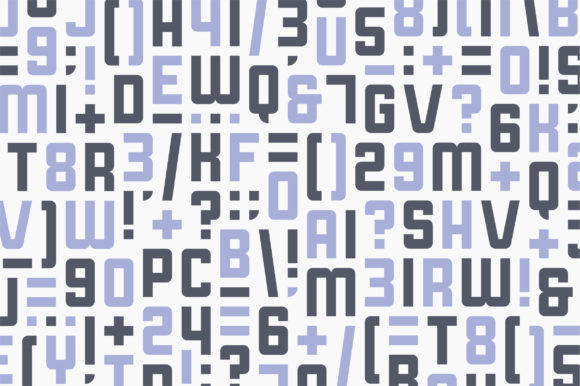
Arlo Font
Arlo is a contemporary sans serif font, featuring uppercase characters, numbers, and assorted symbols. Fall in love with its playful look & feel!